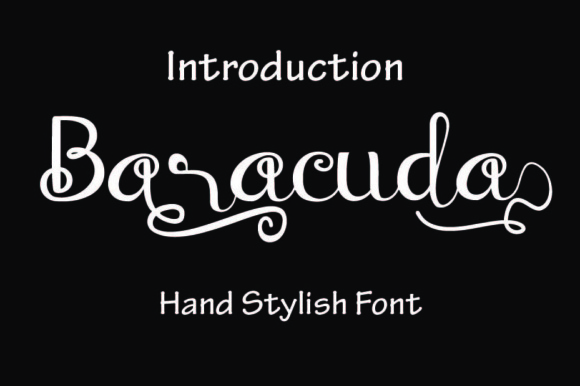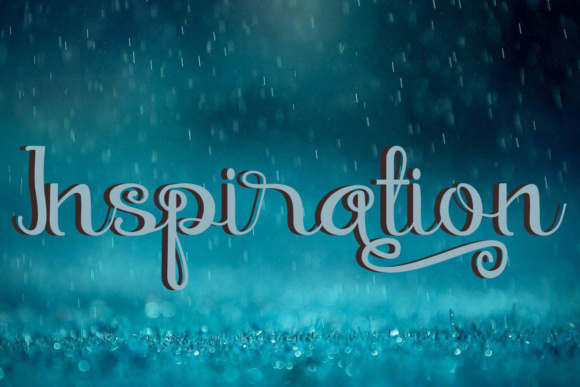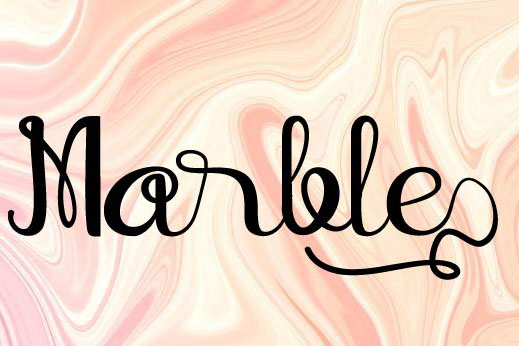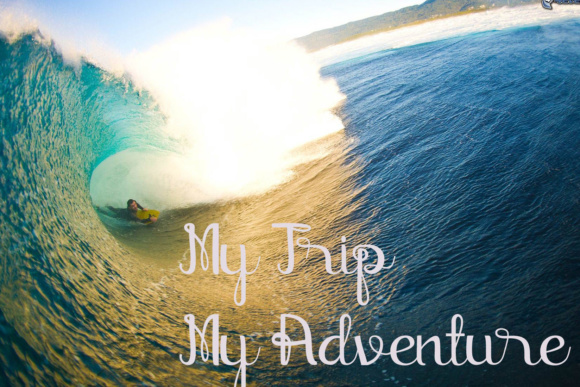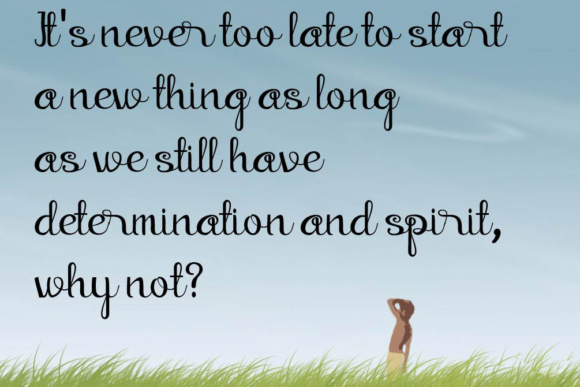
Baraccuda Font
About Baraccuda Font
Baraccuda is a gorgeous and classy script font, perfect for use in a wide range of both digital and print projects. This font has a swirly appeal, and can add some youthfulness to your projects.